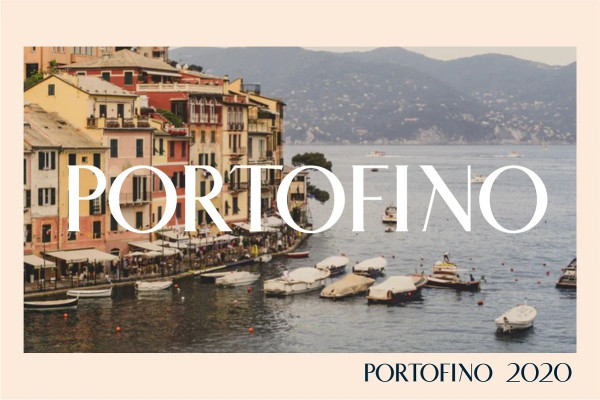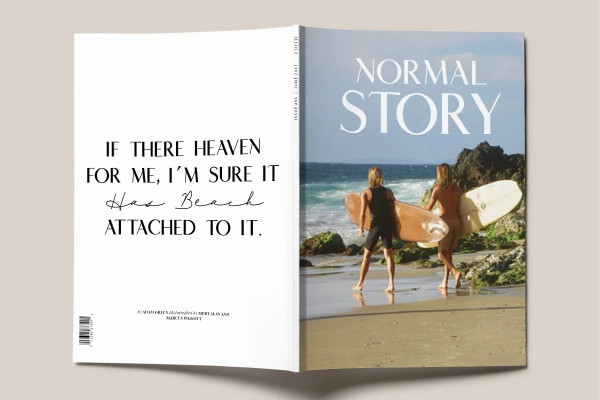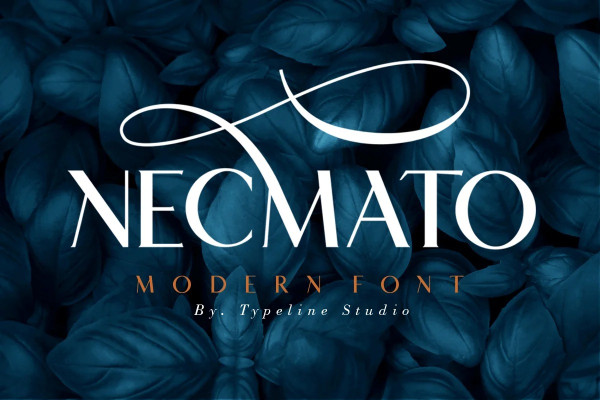
Necmato Font
Necmato Font is a Allcaps Classic & Elegant Looking Necamto have two font regular and italic version Necmato font Could be used for any project from Art Deco to Modern era.
Necmato perfect use for logos, print, collage, body text, and more! It looks minimalist a really cool modern-meets-vintage look to any piece.